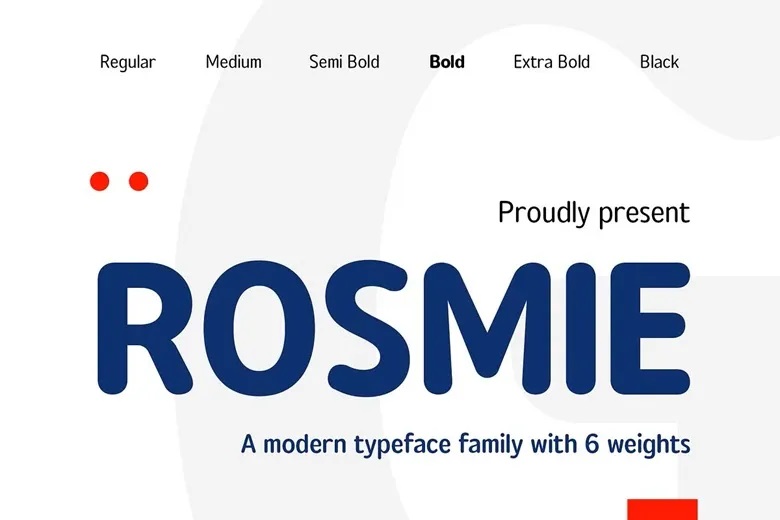
Rosmie Font
Rosmie is a fresh, circular sans serif typeface family inspired by the classic type designs of the 1970s. While designed as a display font, its readability makesit equally effective for body text. This font offers a playful, simple and approachable look. This makes it ideal for various projects such as magazine and books, to labels, logos, websites, posters and branding materials.
This family has six weights from Regular to Black. It also has slanted options for added flexibility, offering designers plenty of choices to create refined and visually engaging layouts.